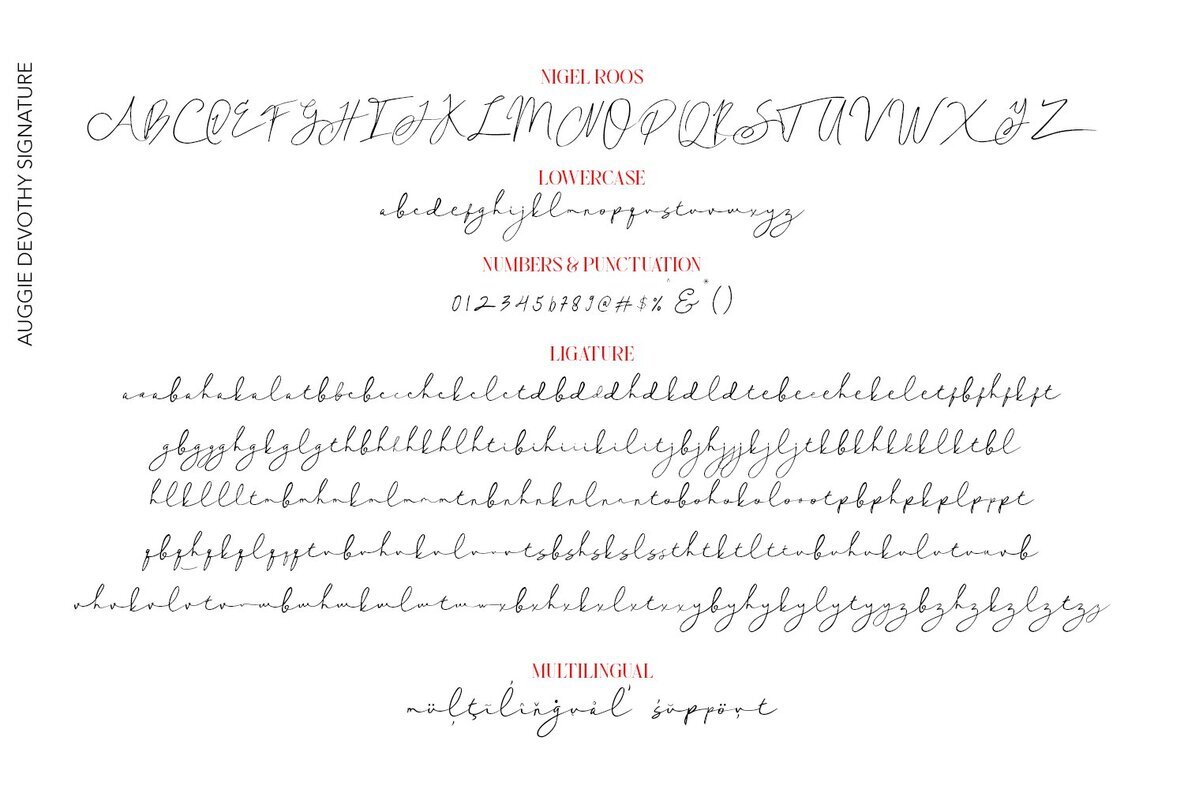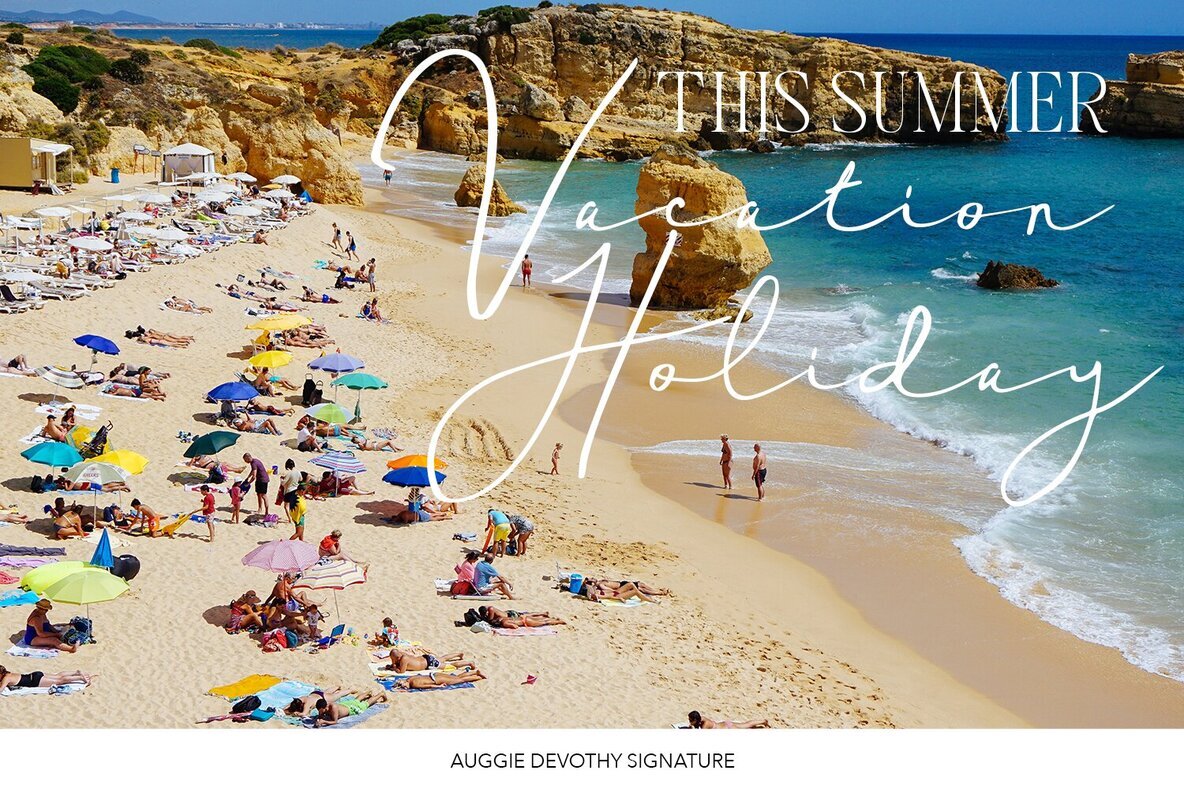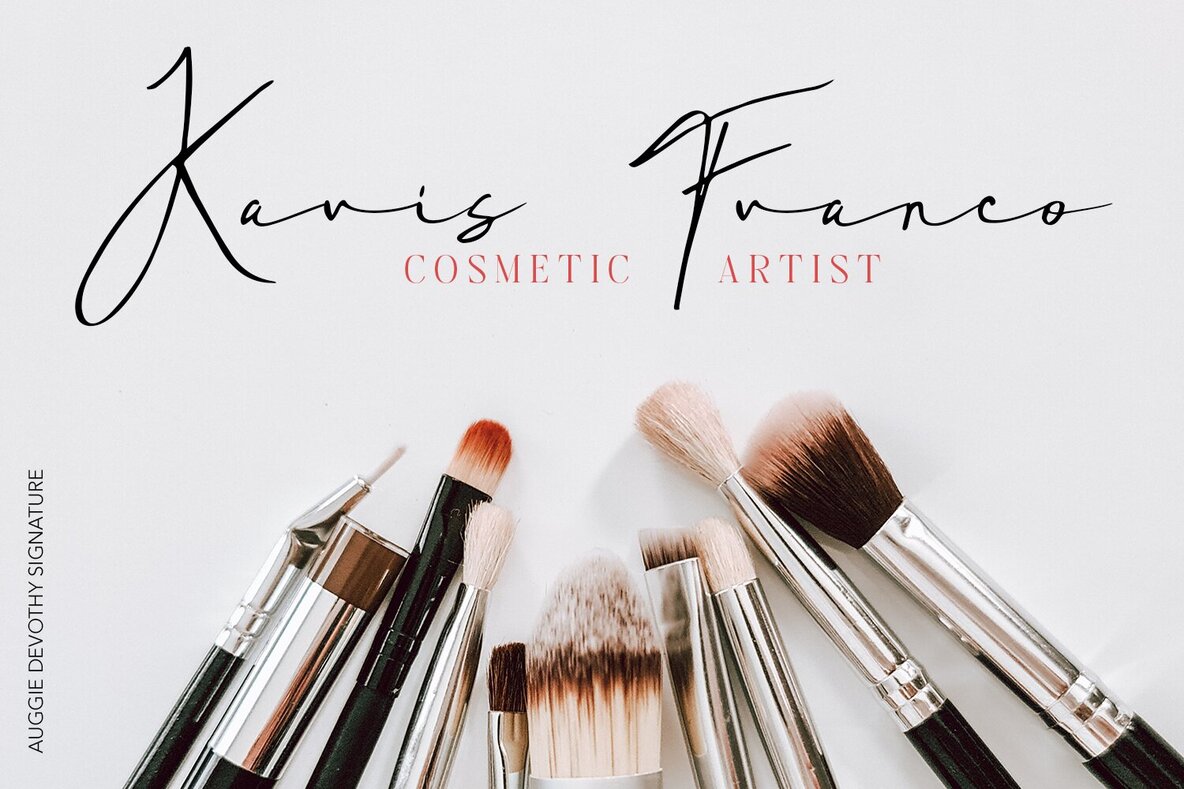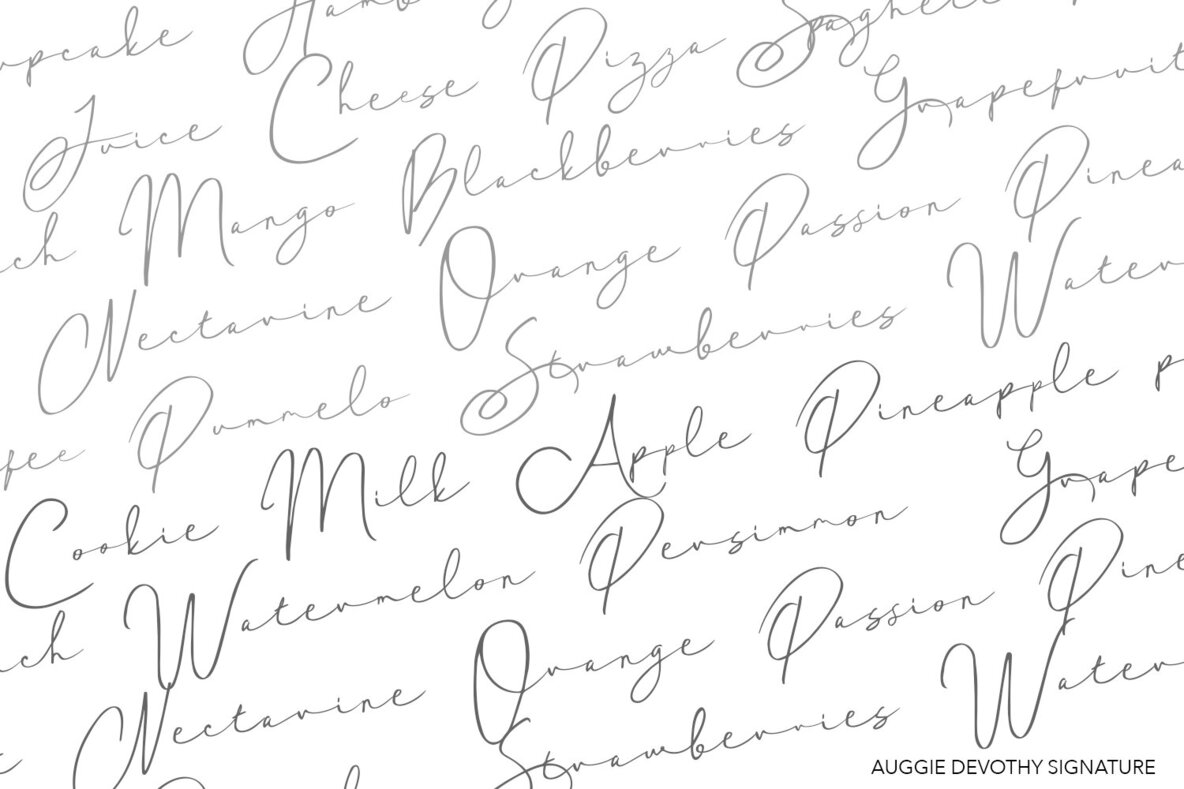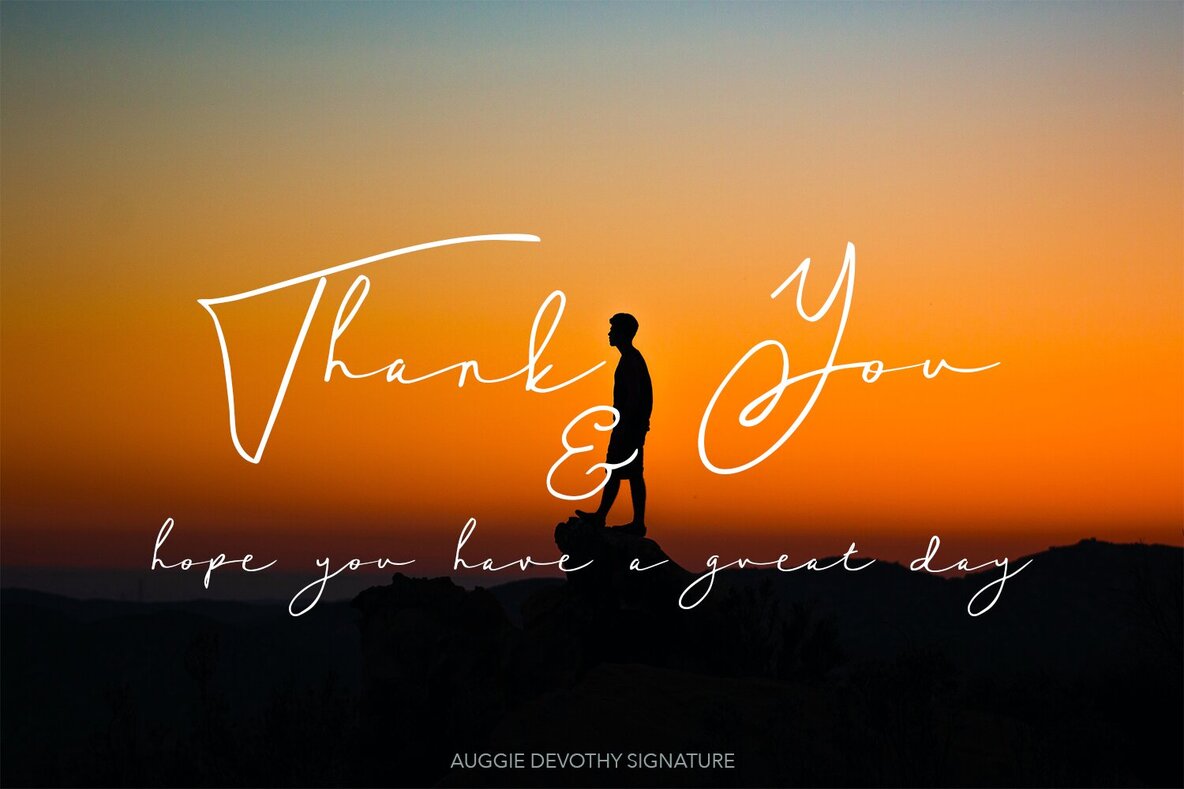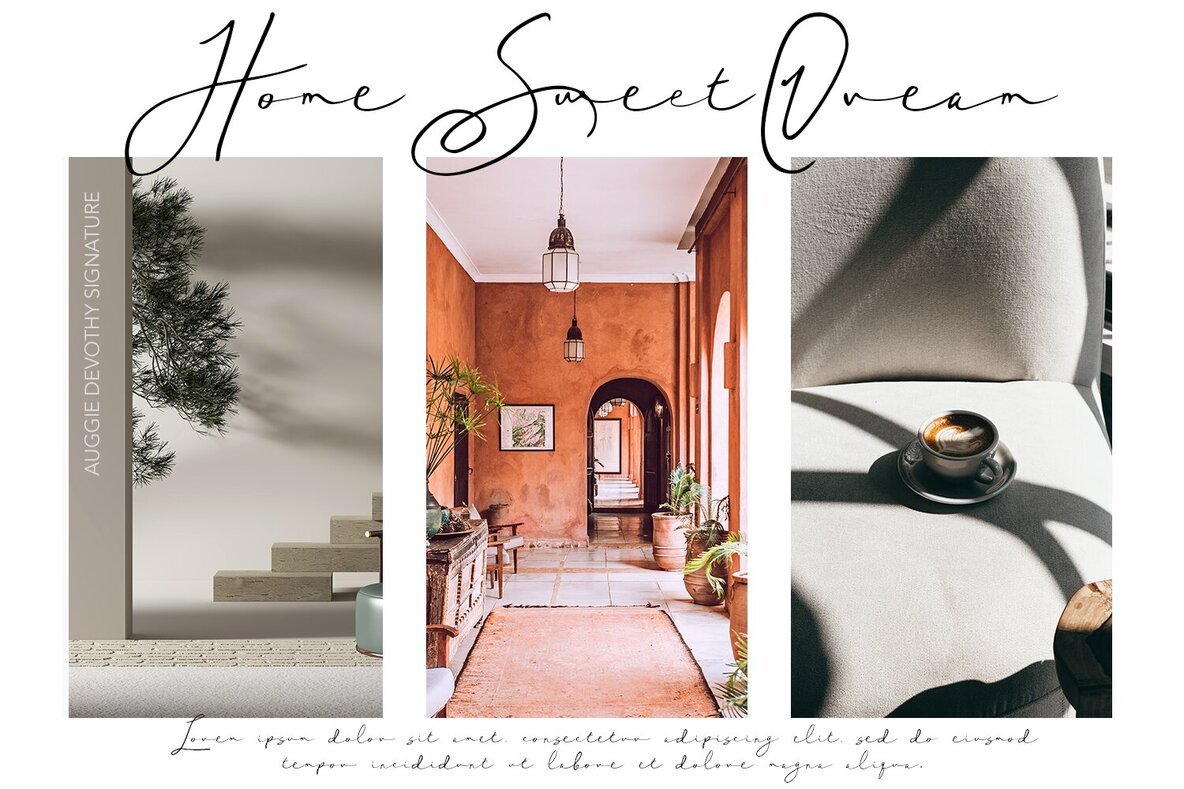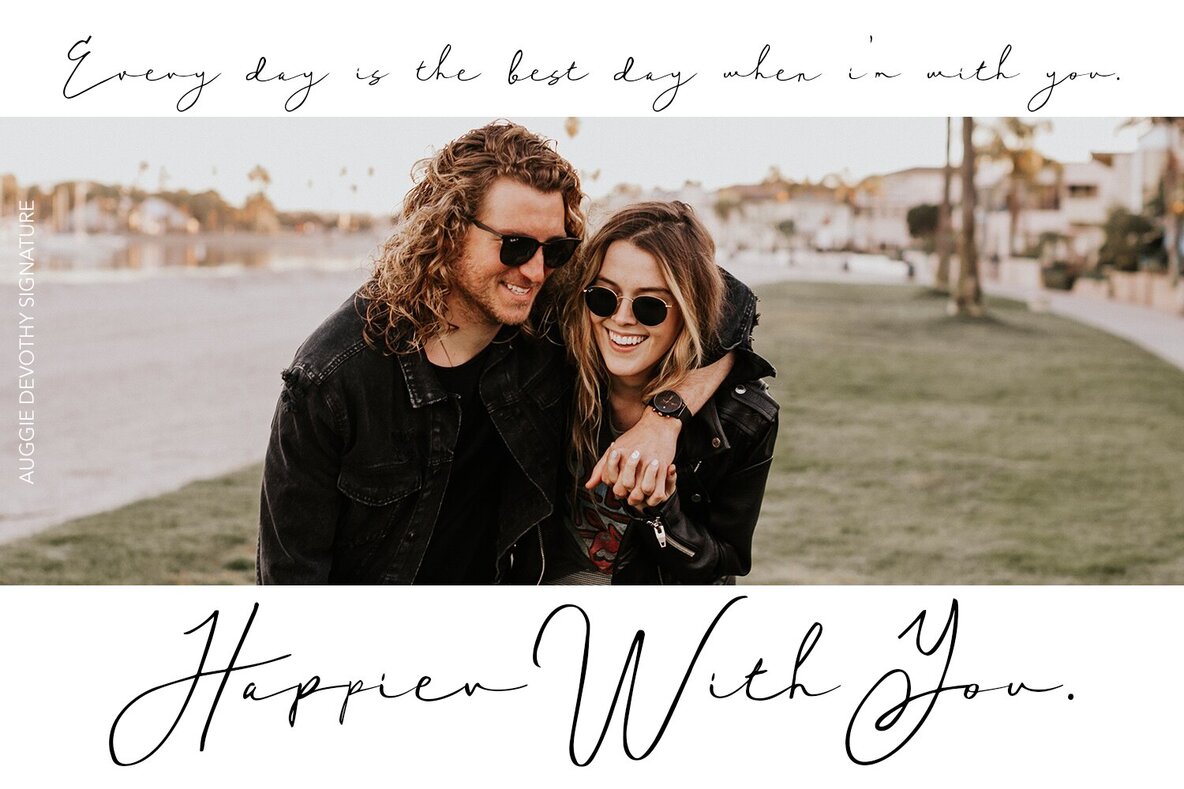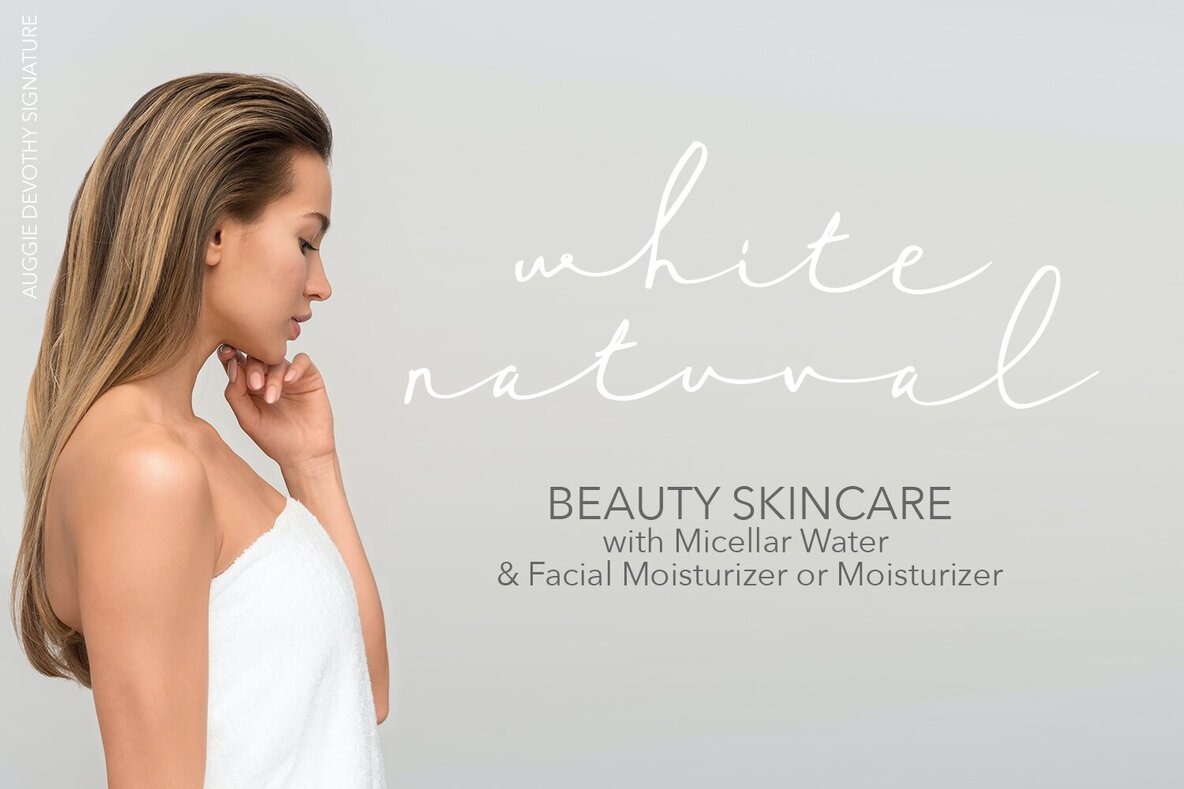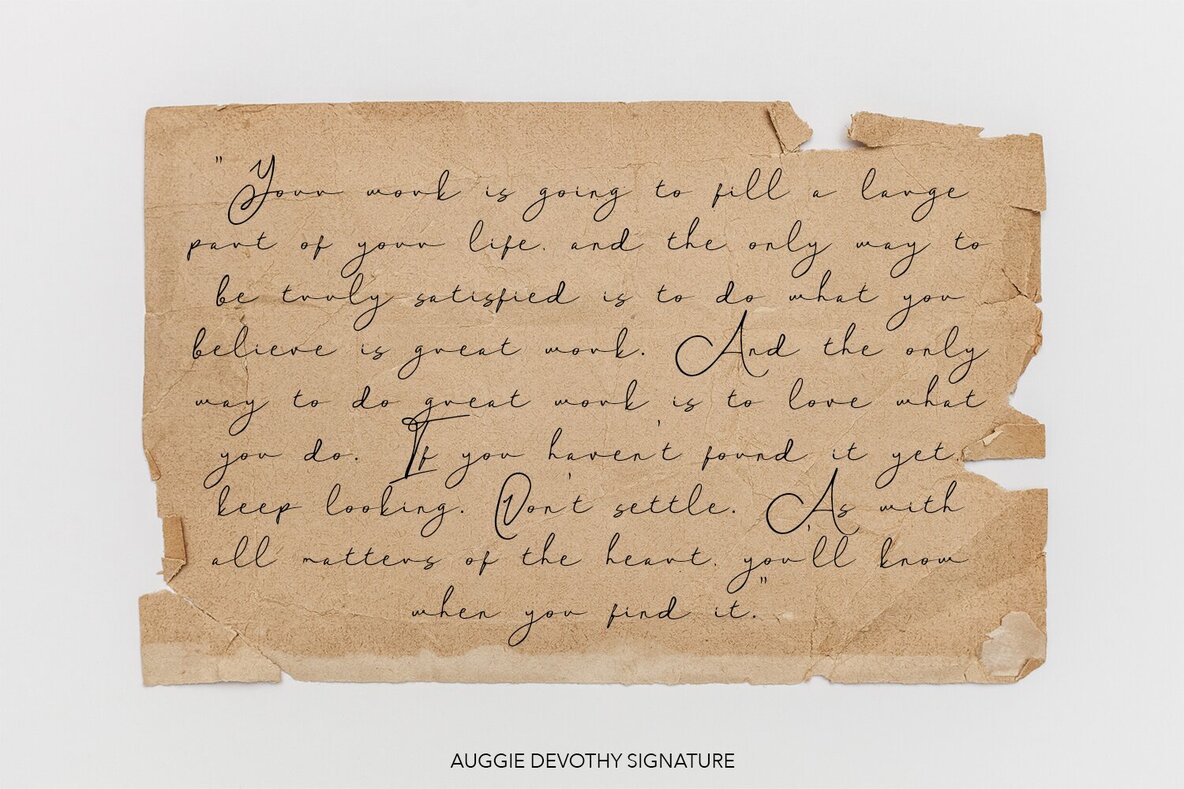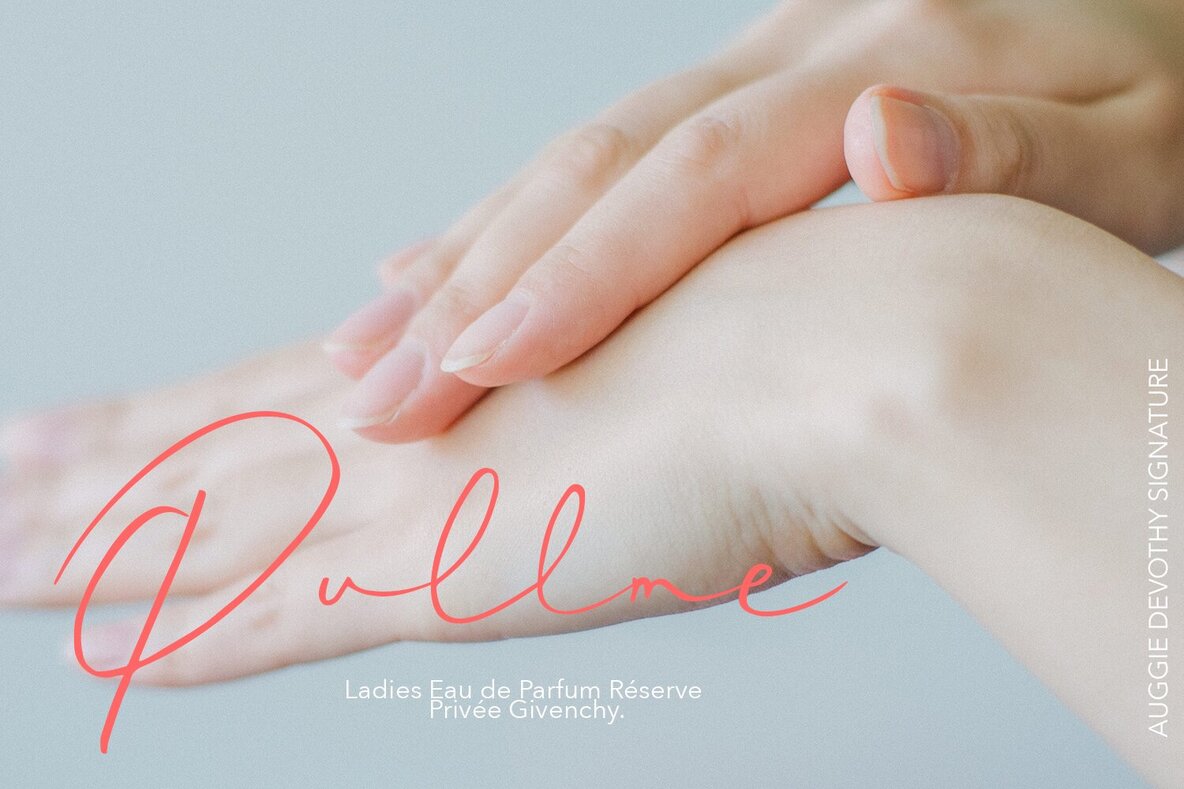
Auggie Devothy Font
Auggie Devothy
Auggie Devothy is designed to deliver a striking and authentic touch to your design projects. This font features over 149 ligatures, ensuring a genuine and handcrafted signature appearance for all your design needs.Auggie Devothy: A Realistic Signature Typeface